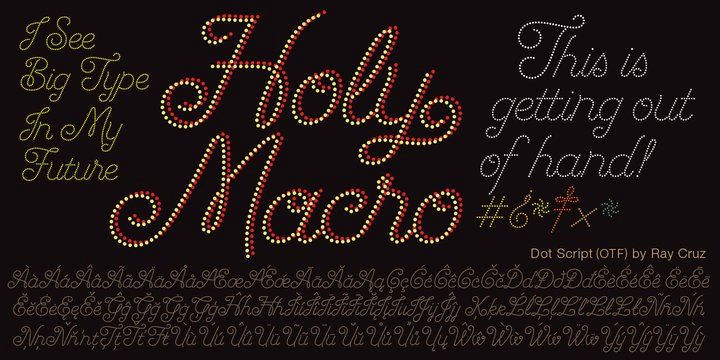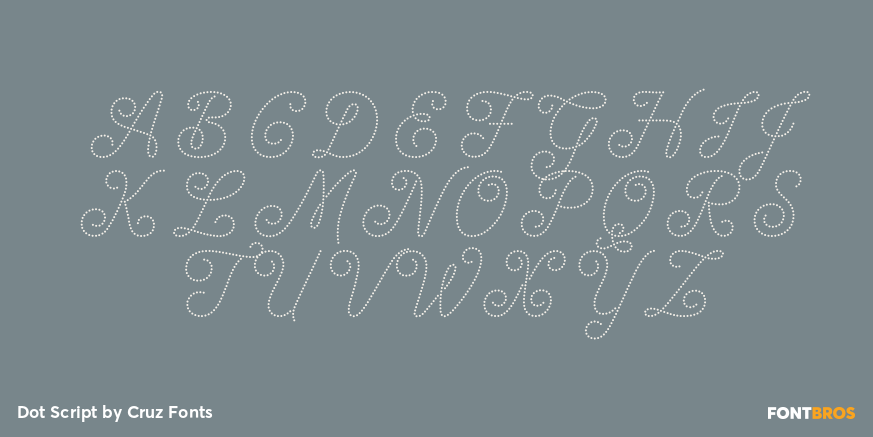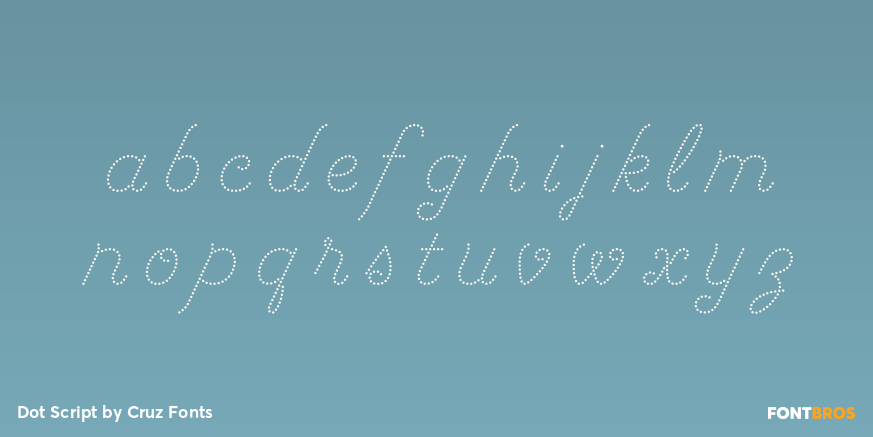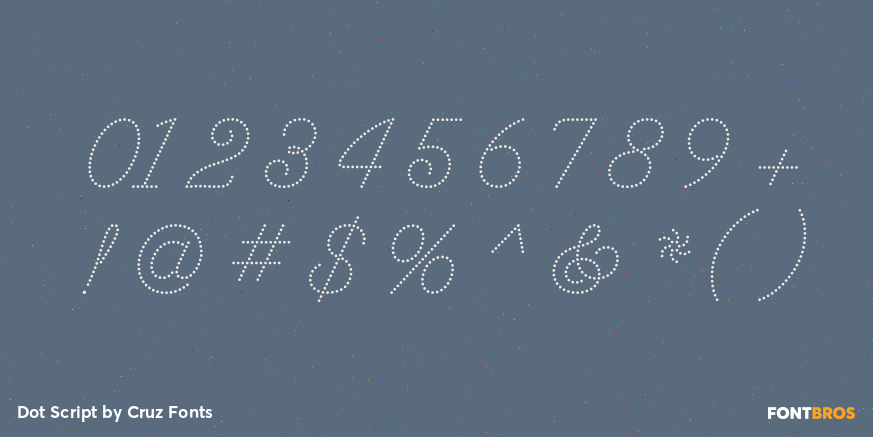
Dot Script
Font Family by Cruz Fonts
A display typeface built with dots for use at large sizes. It is smooth and elegant. Great for titles, headlines, advertising, music, toy products and cosmetics with a youthful flavor.